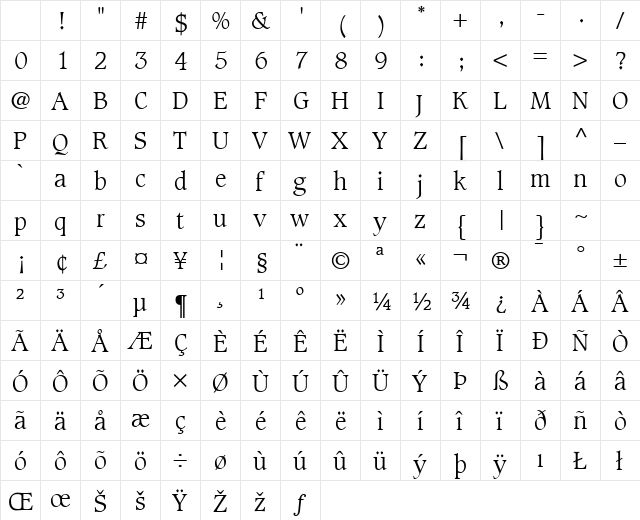
Complete Grammateus Light SSi Light glyph index. Displaying only characters natively supported by Grammateus Light SSi Light font.
Grammateus Light SSi is a composed and adaptable typeface that performs quietly and consistently across a wide range of design contexts. Its slender proportions lend an understated elegance to any composition.